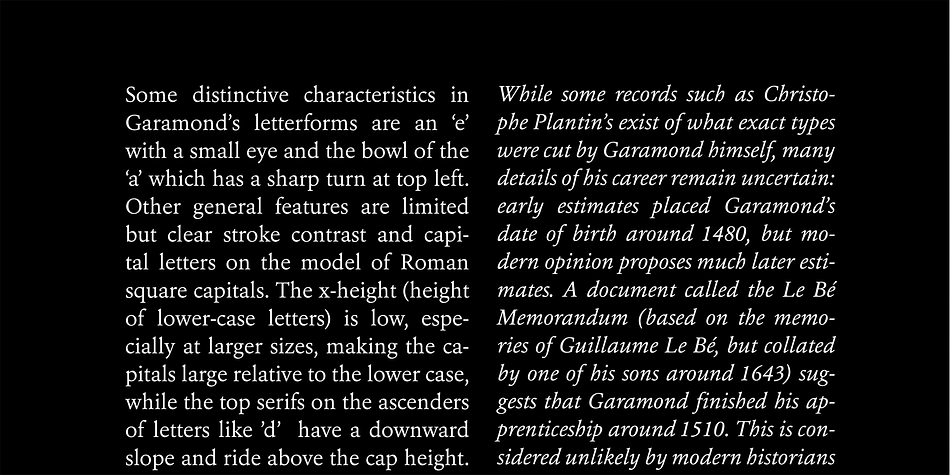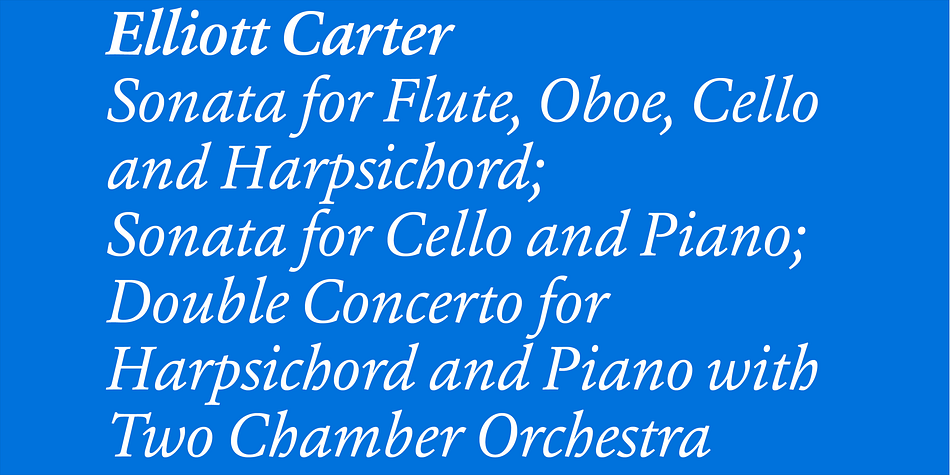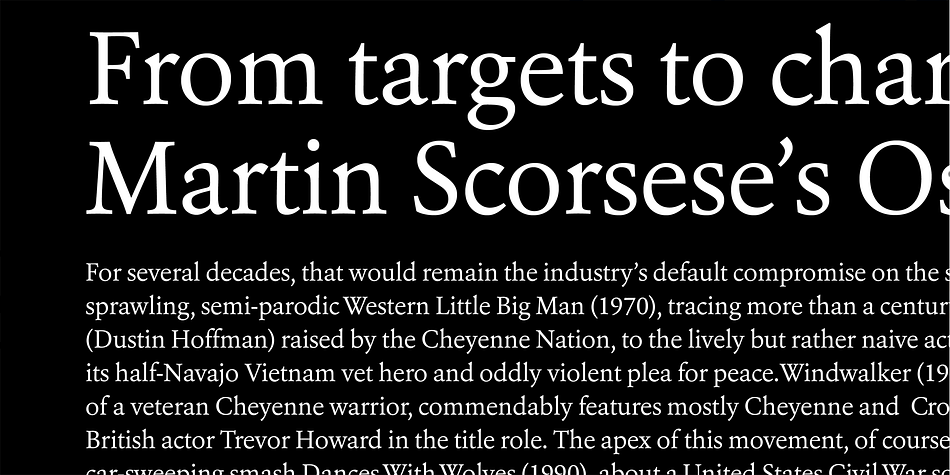
Erato
Erato is a serif font family. This typeface has six styles and was published by Hoftype.
Erato follows the structure of french and dutch 17th century types. But instead of being historical, it uses modern formal elements. The simplification of similar formal elements creates a homogeneous and contemporary impression. Erato comes in six weights and in OpenType format.
All weights contain standard and discretional ligatures, small caps, proportional lining figures, tabular lining figures, proportional old style figures, lining old style figures, matching currency symbols, fraction- and scientific numerals.